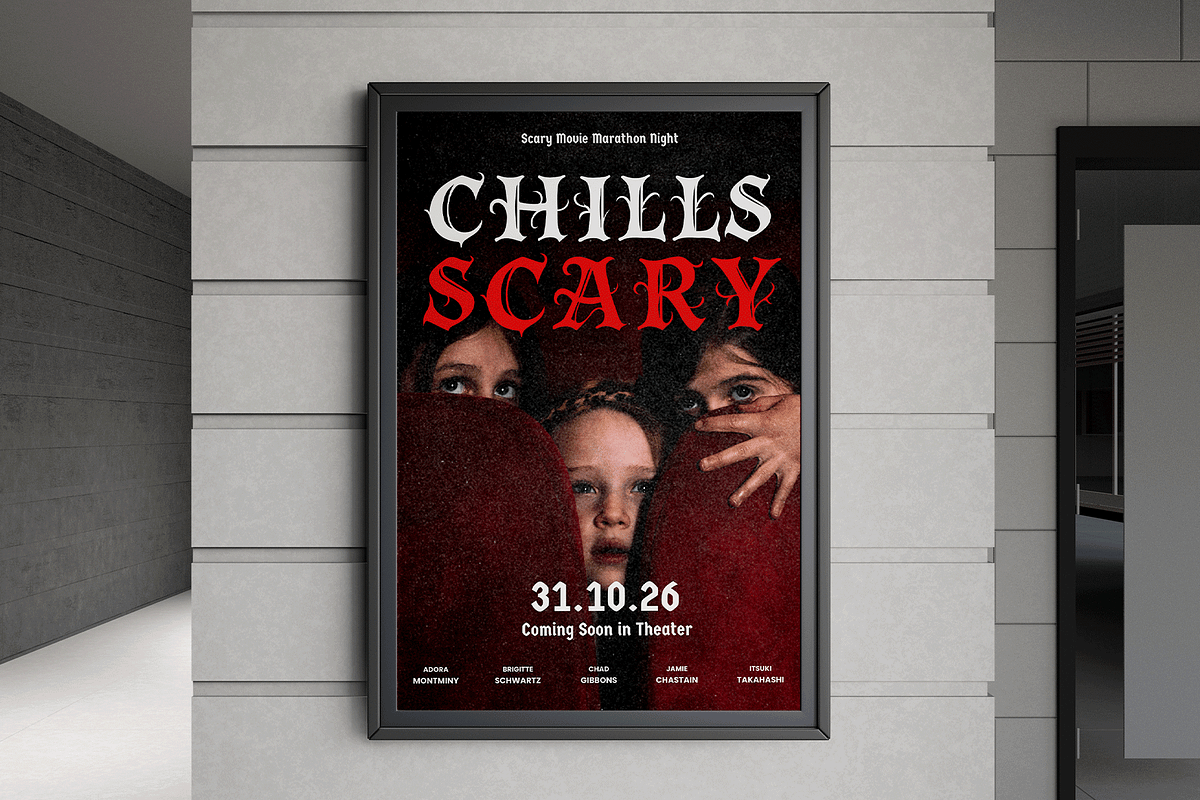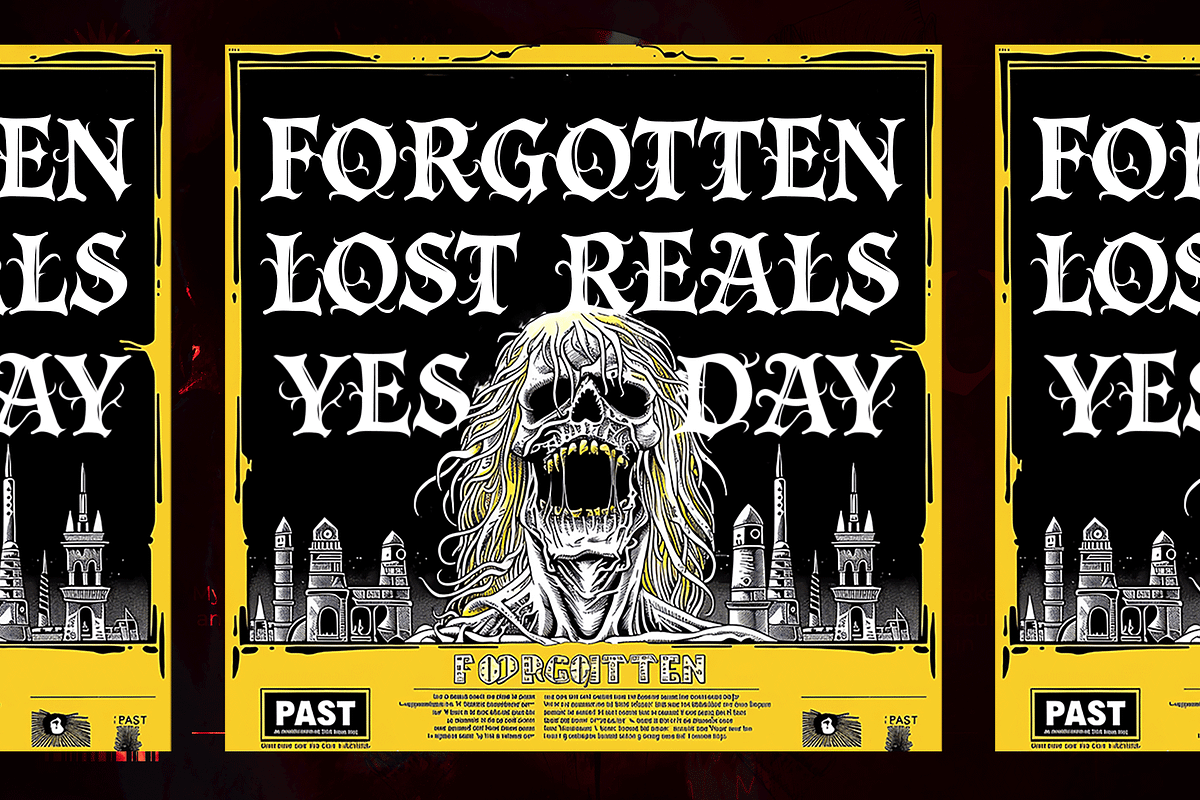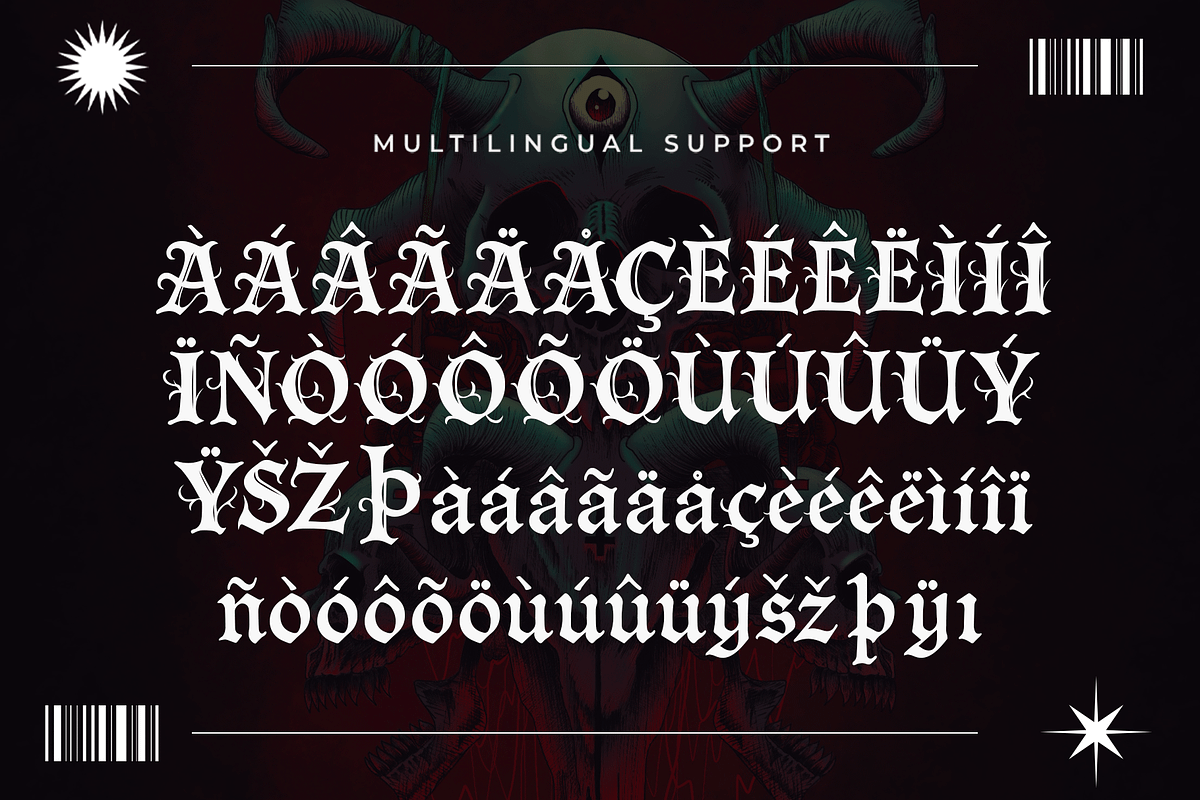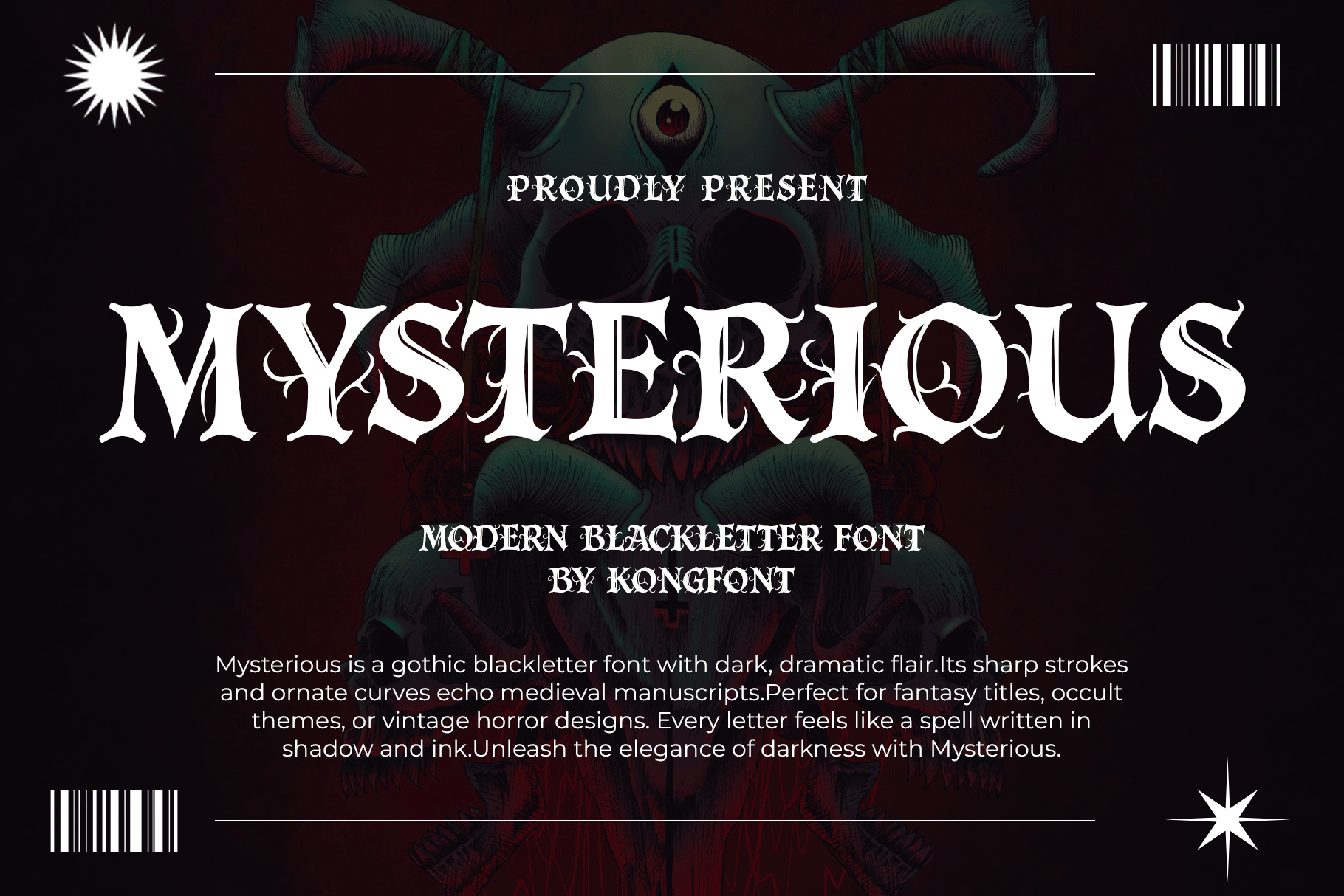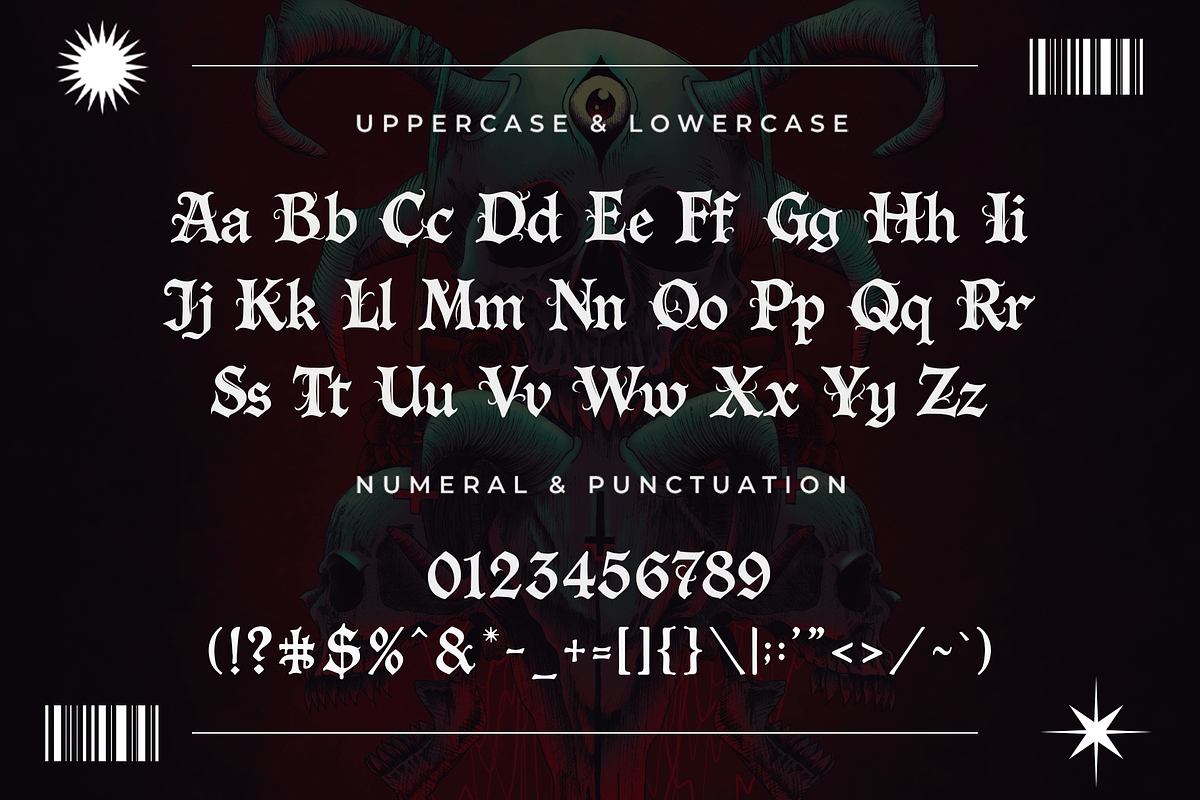
Mysreious – Modern Blackletter Font
Mysreious is a modern blackletter font that blends traditional Gothic aesthetics with a fresh, contemporary twist. Its sharp strokes, bold presence, and unique letterforms make it perfect for logos, posters, album covers, tattoo designs, and any project that craves intensity and edge.
Whether you're designing for dark-themed branding or eye-catching merchandise, Mysreious delivers a striking visual impact that commands attention with elegance and mystique.